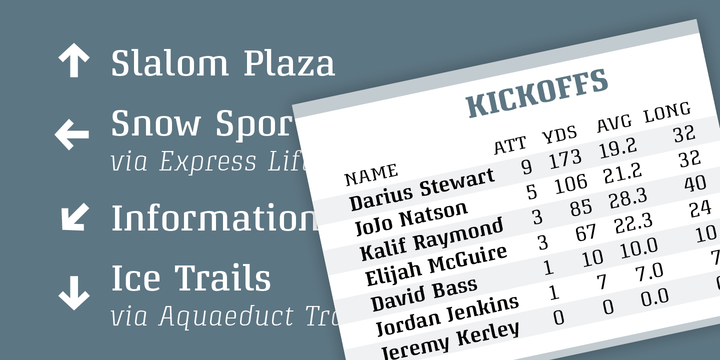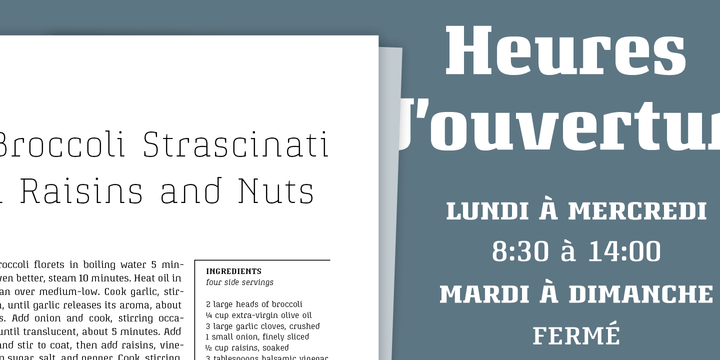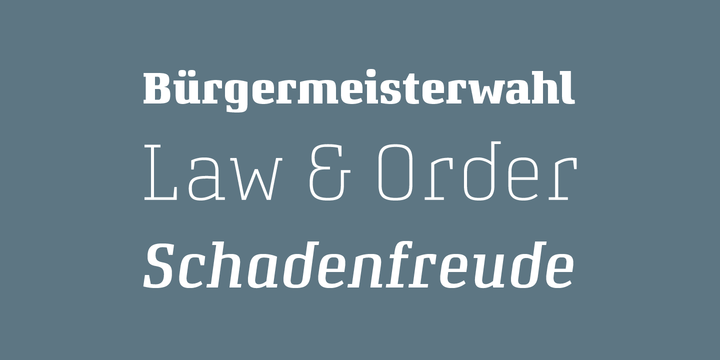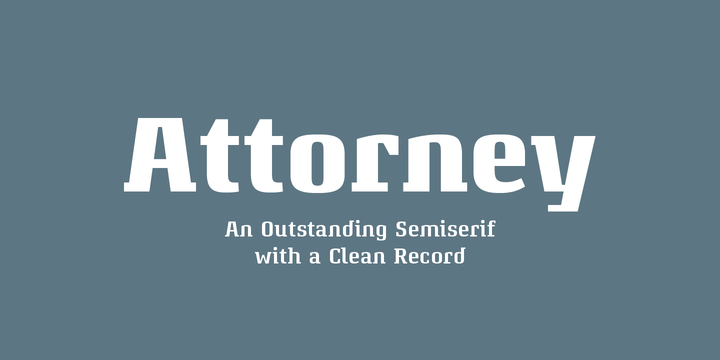
Originally, Viktor Solt-Bittner developed Attorney as a custom font for a law firm, hence its name.
Attorney shows a systematic, yet unconventional placing of its serifs, hard corners and a clean design.
The typeface was produced by Schriftlabors type director, Lisa Schultz. Attorney consists of 7 weights, from Light to Black, each of them accompanied by an italic, totaling in 14 styles.
All of them contain several figure sets, small caps and many alternative forms, which are accessible by OpenType features.